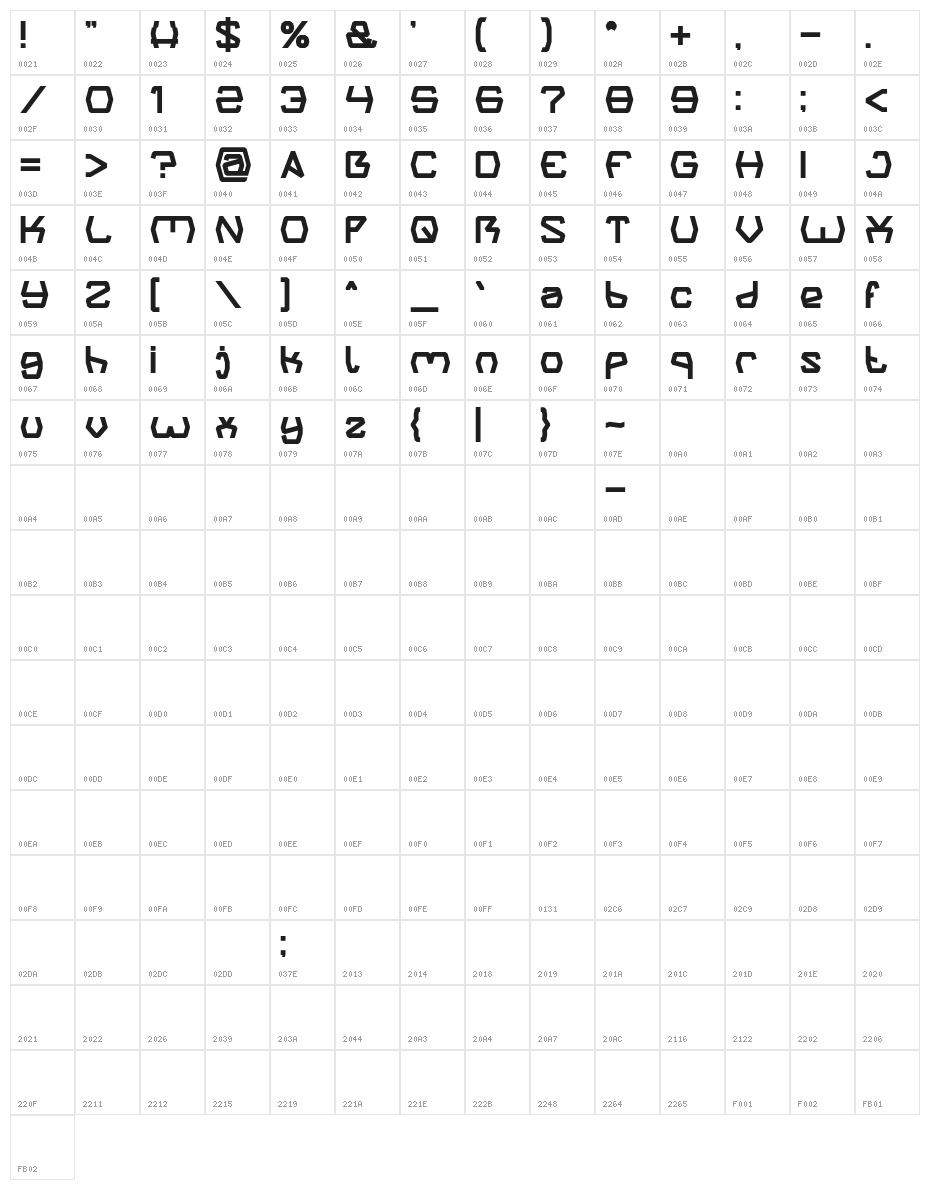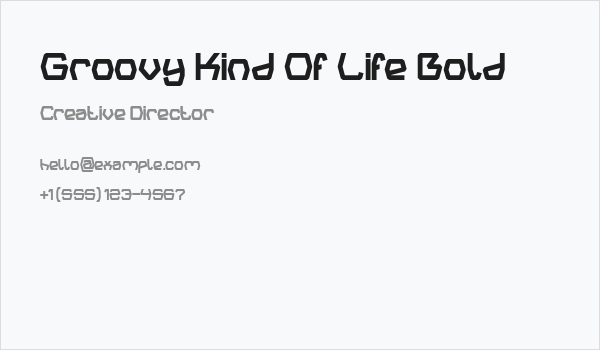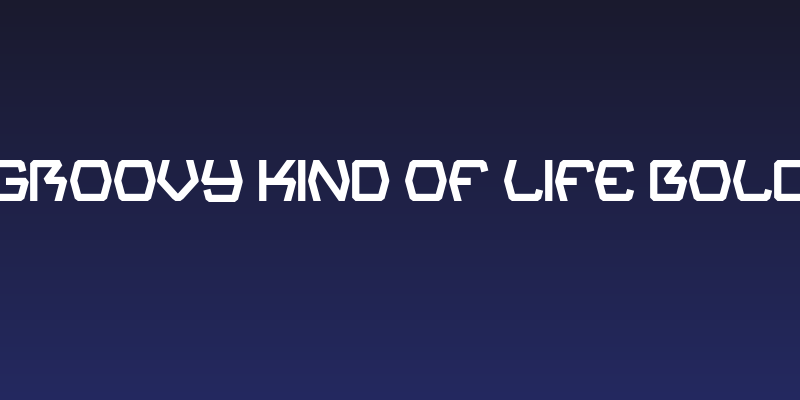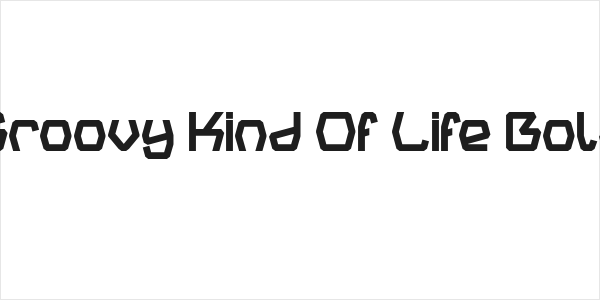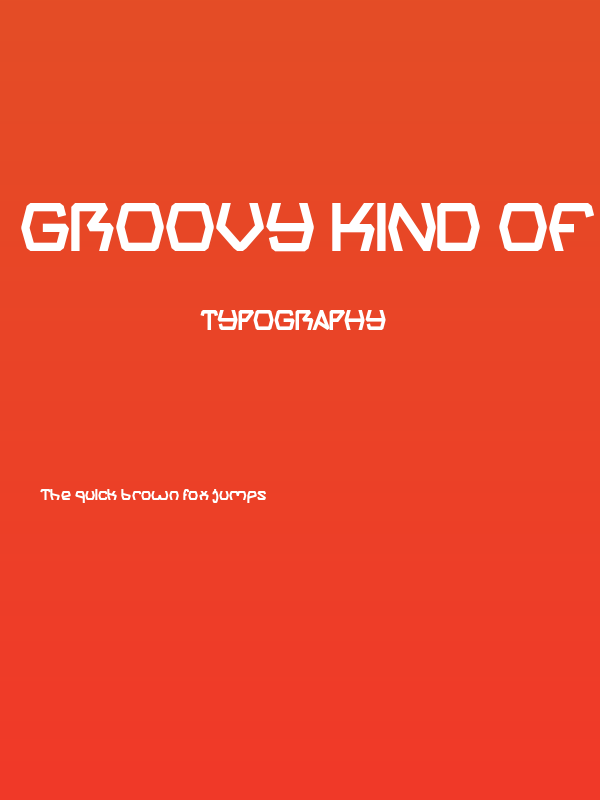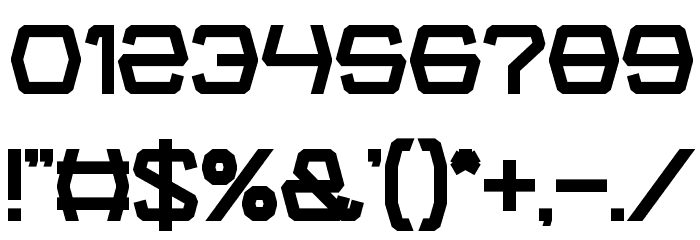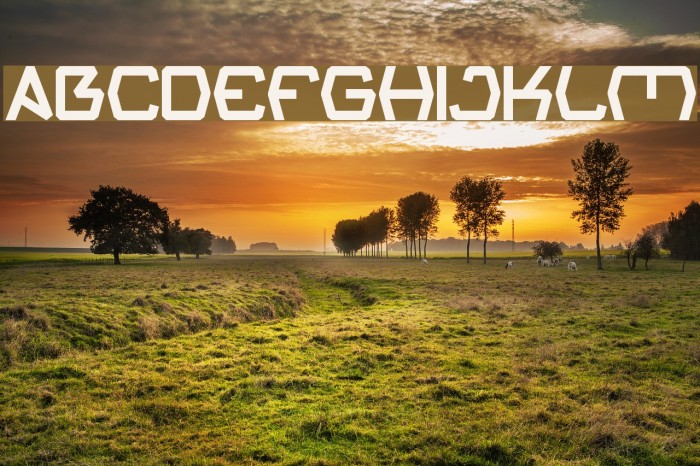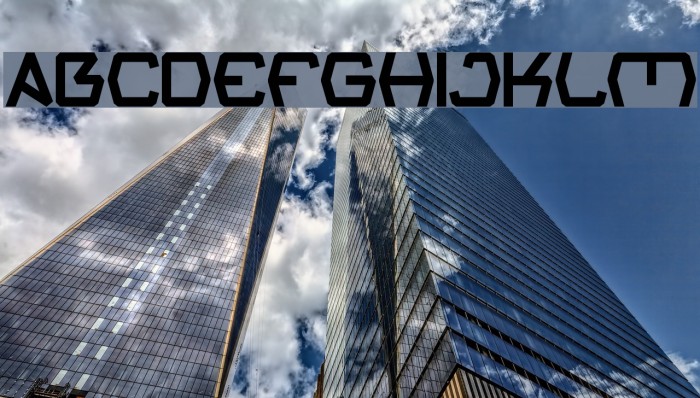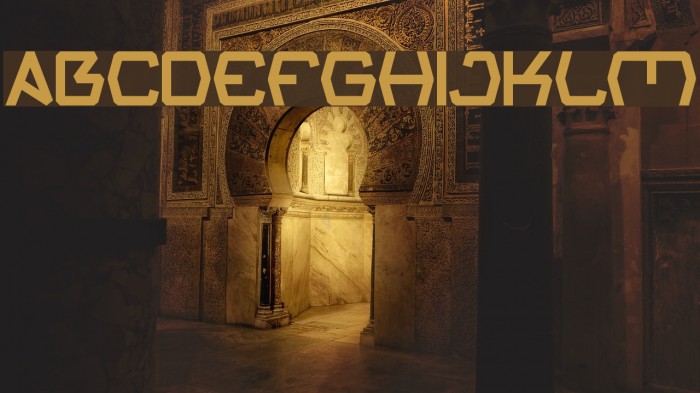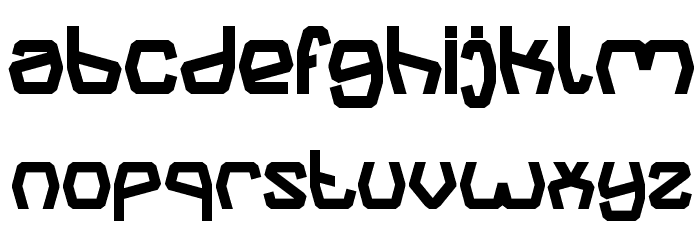
Groovy Kind Of Life Bold Font
This font features a bold, geometric design with a modern twist. The characters are constructed with angular, sharp edges and a consistent stroke width, giving it a futuristic and tech-inspired appearance. The uppercase and lowercase letters maintain a uniform style, with unique cuts and angles that create a dynamic visual rhythm. The numerals and special characters follow the same design principles, ensuring cohesion across all elements. This font's distinct style makes it stand out, ideal for projects that require a bold and innovative look.
| Proposed Projects | Ideal for technology branding, futuristic posters, video game titles, and innovative product packaging. |